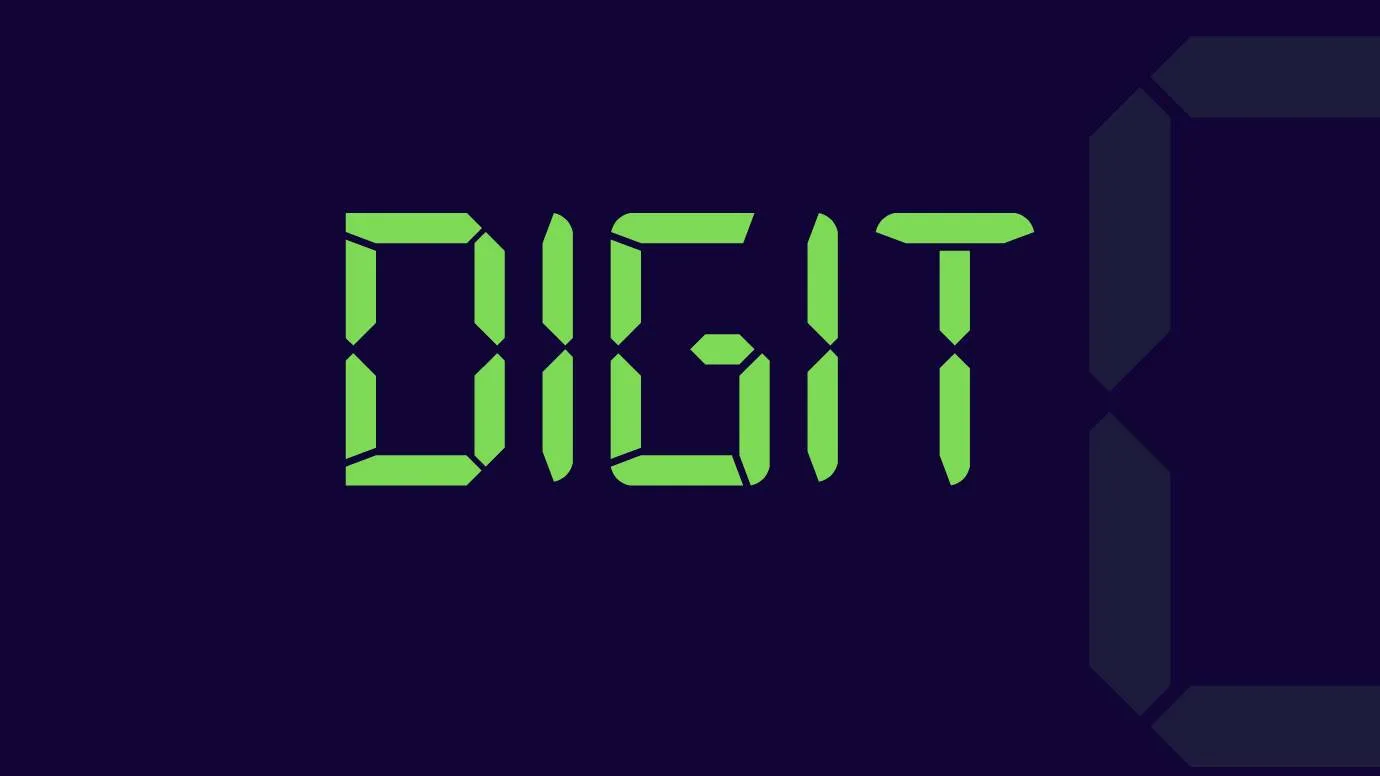
Digit Font Family is a modern display-look typeface. This stunning typography was designed by Paldave. Also, this texture adds uppercase letters, a few numbers, lowercase letters, one currency symbol, some general punctuation, and a few special characters.
This modern typography also has unique glyphs and stylish alternates. The look of this font is so fantastic and suitable for different digital text design purposes. It comes with more than 84 glyphs along with 1024 units per em.
Digit Font